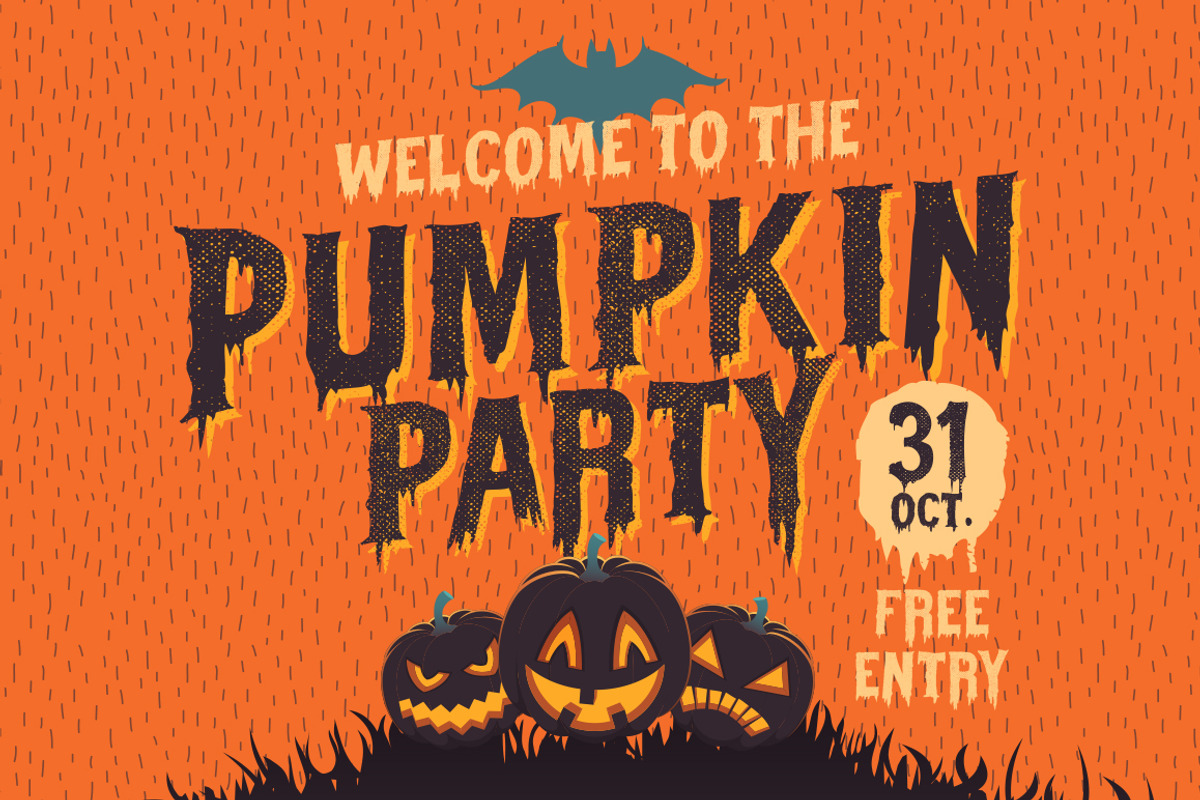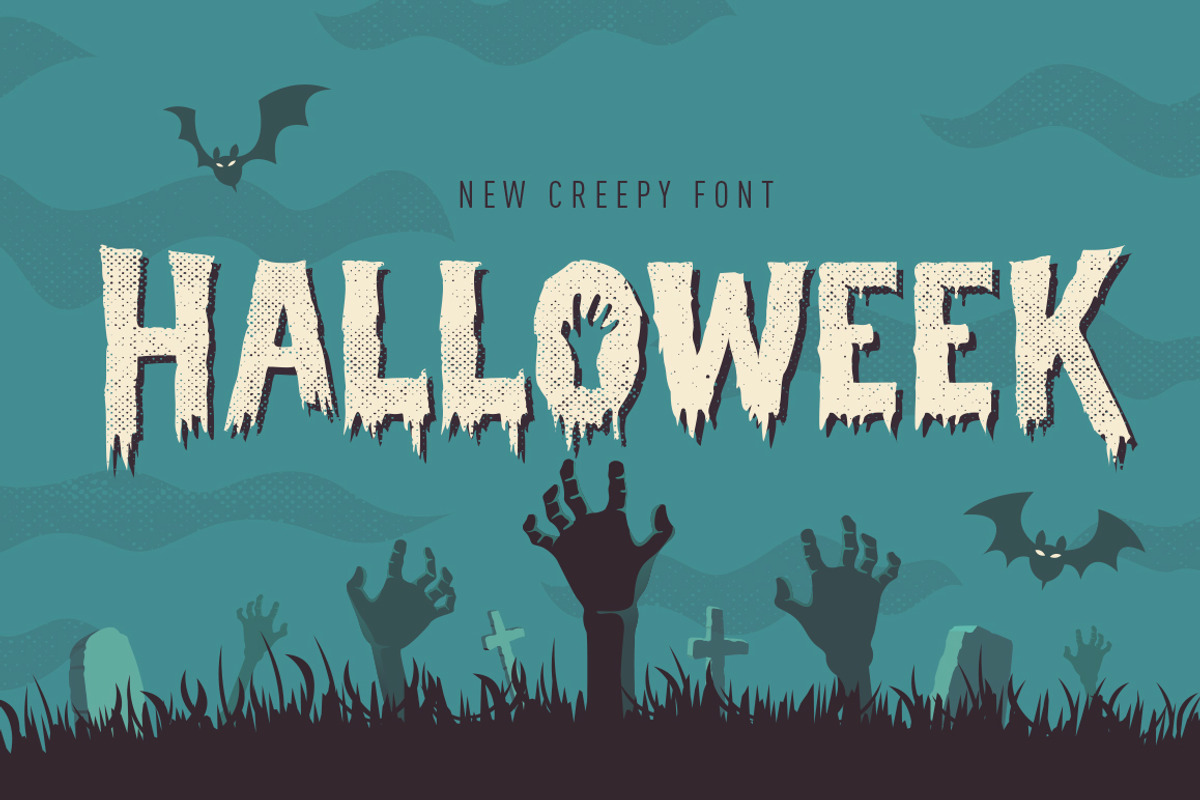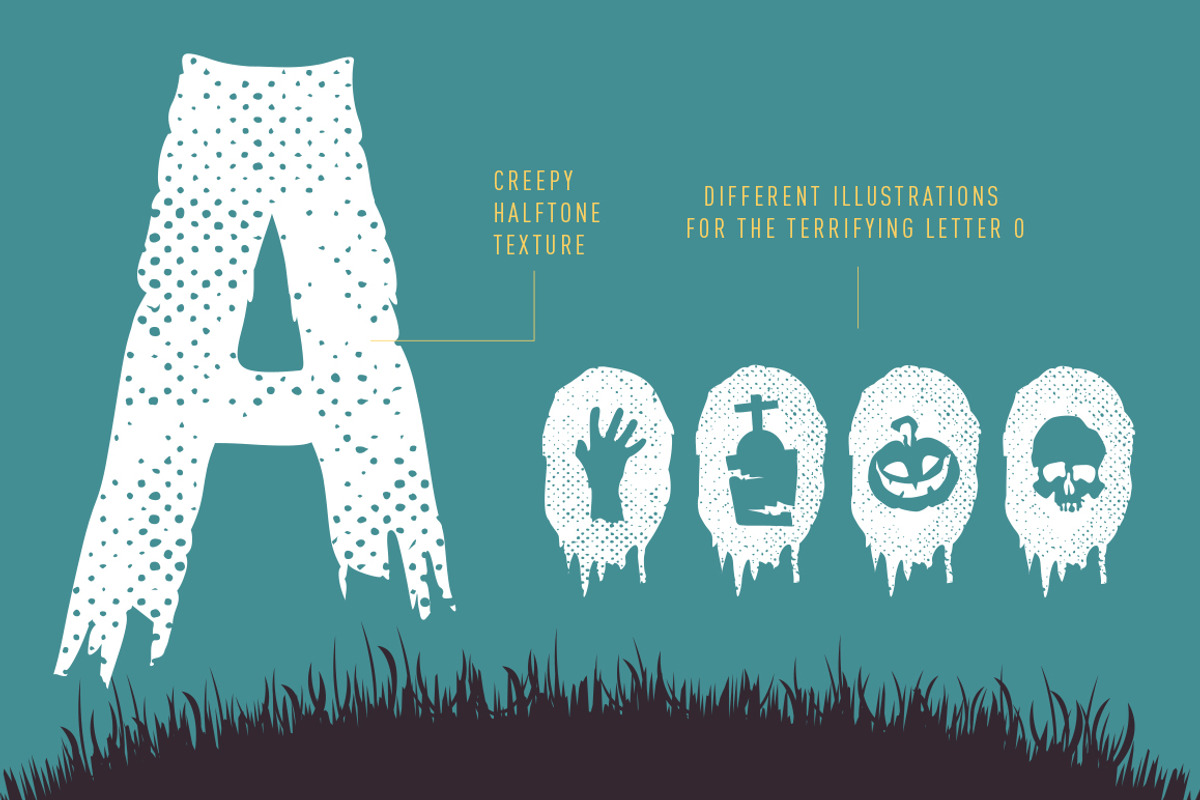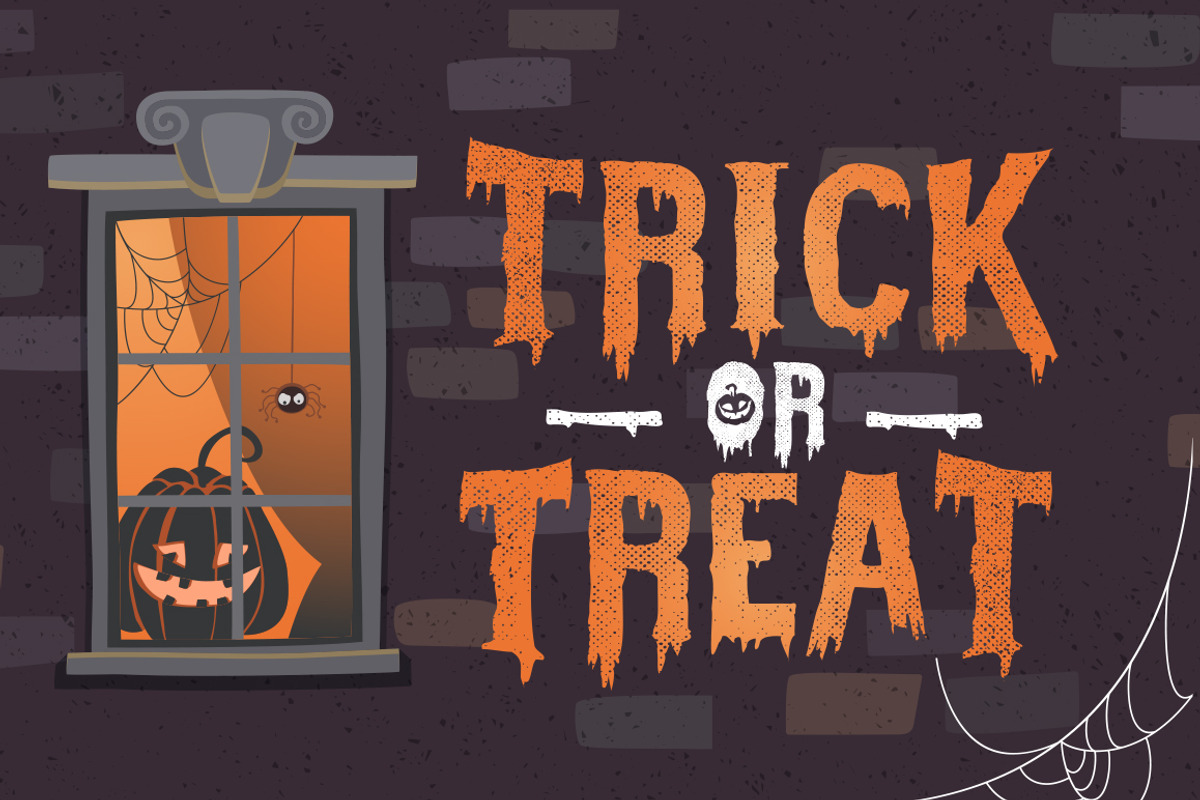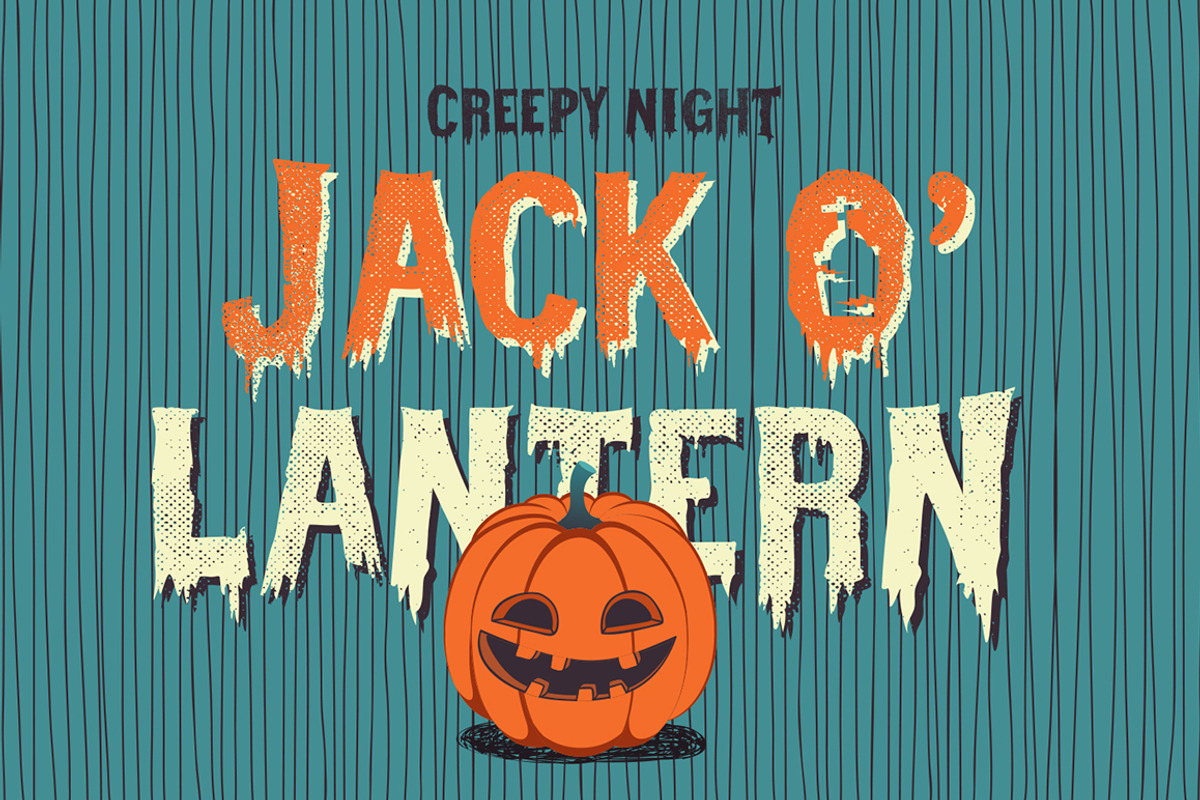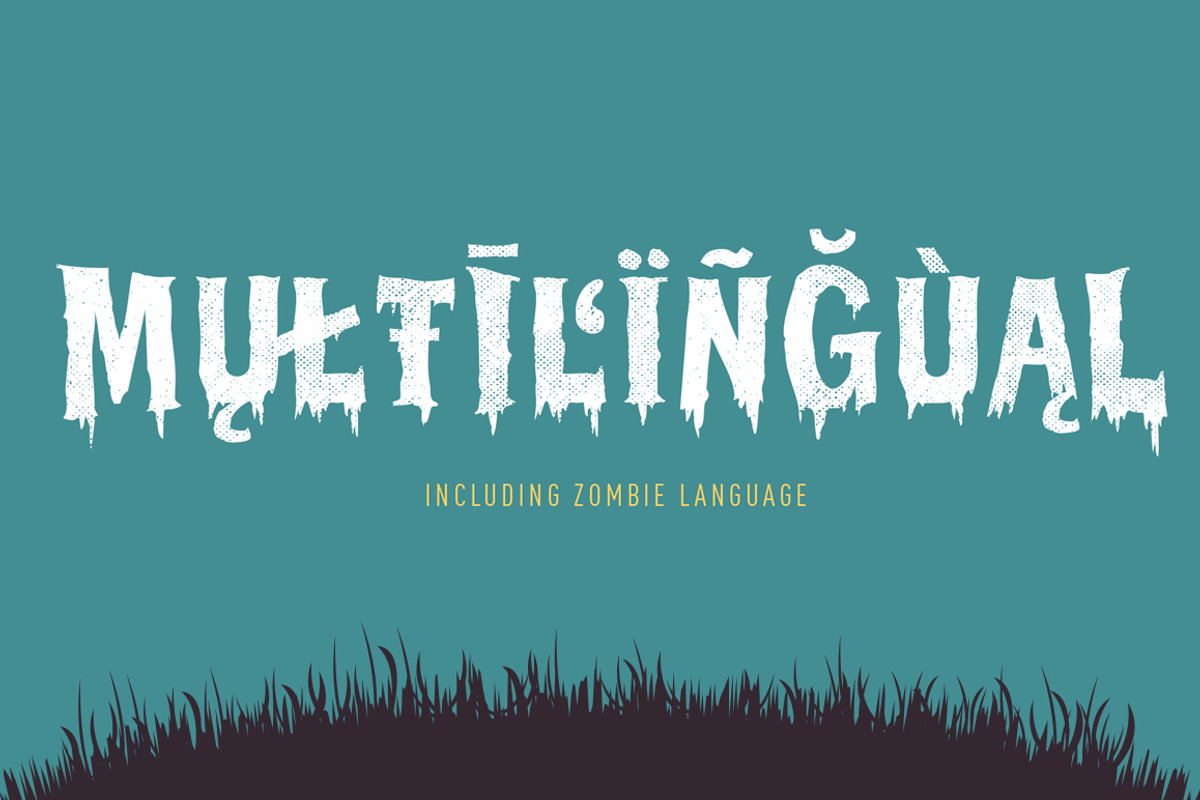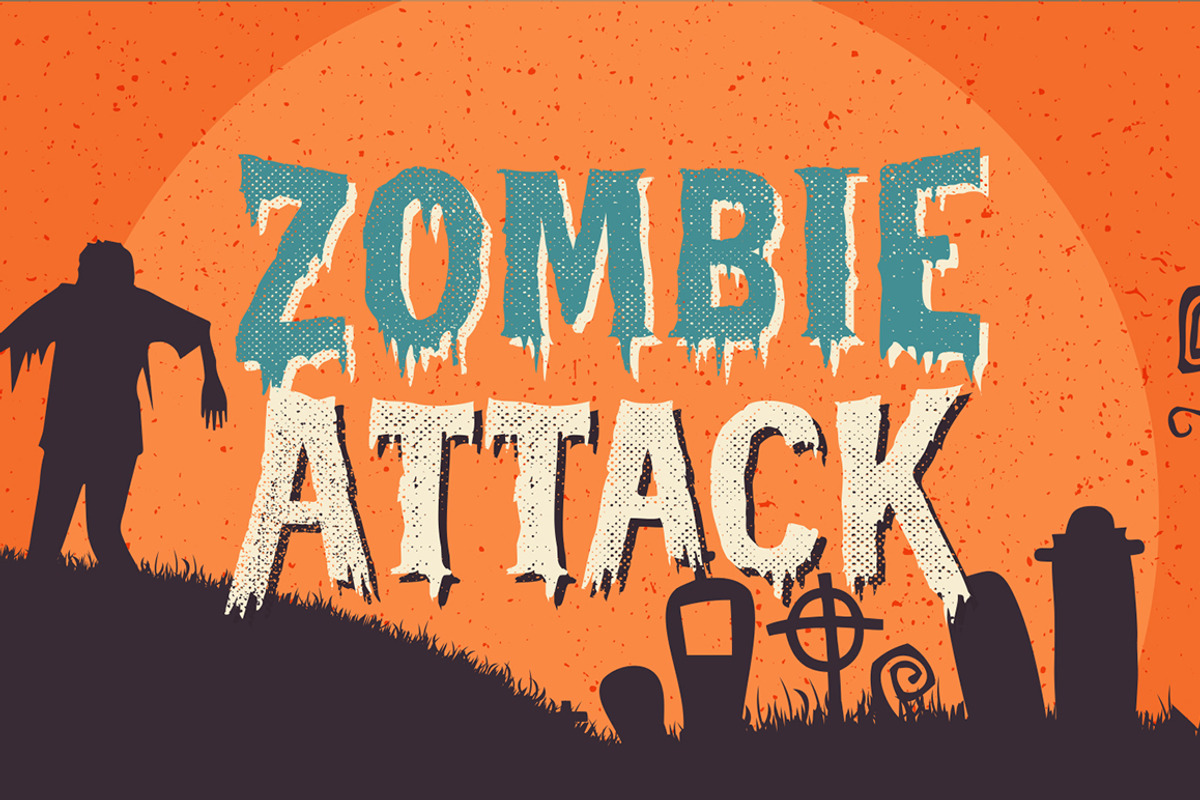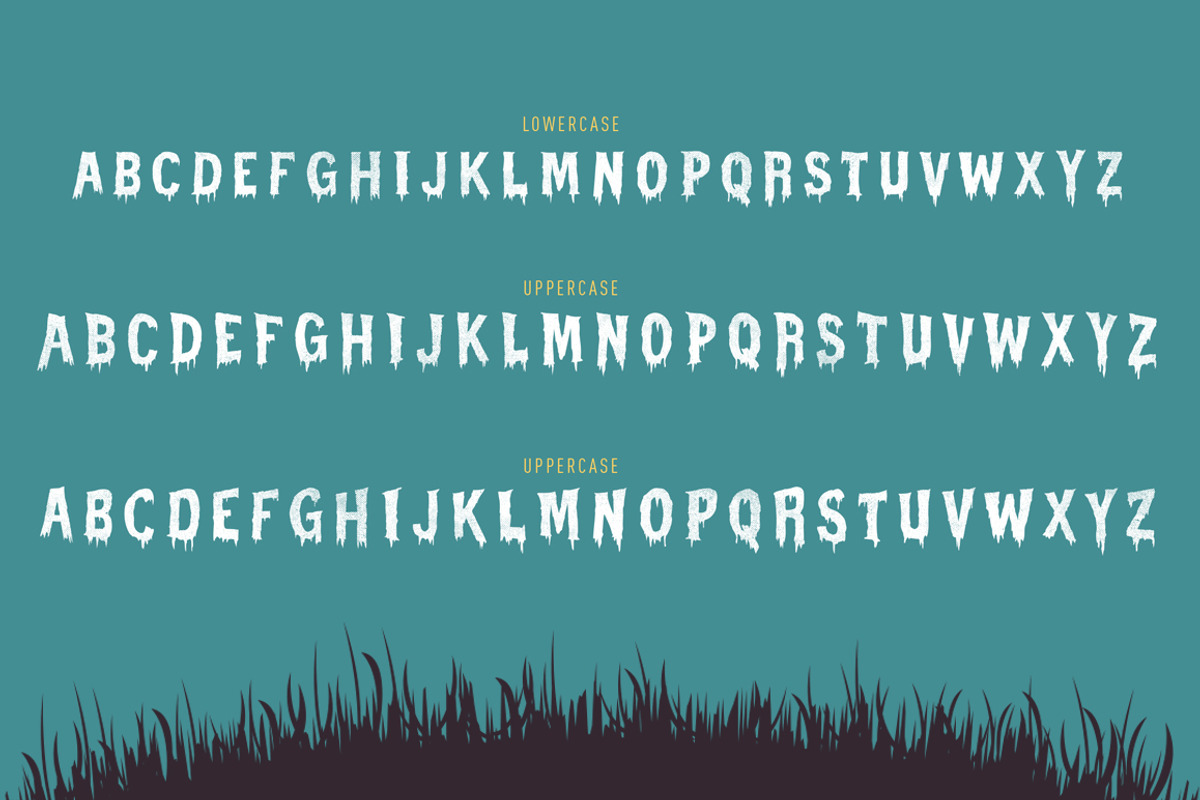
Halloweek
Prepare for a creepy Halloween week, with this gret and spooooooky font!
Inspired by the vintage horror movie from the 50's, this font has a modern twist with it's halftone texture. A full set of uppercase and endings allows you to bring to your words this cinematic look. Just select an uppercase for the first letter of your word, and an ending for the lst letter!